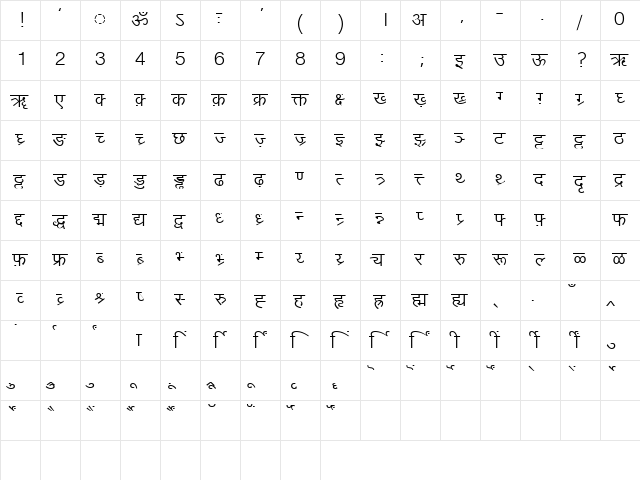
DVW-TTYogeshEN Normal Font Preview
DVW-TTYogeshEN Normal
Design Context for DVW-TTYogeshEN Typeface
DVW-TTYogeshEN is a composed and adaptable typeface that performs quietly and consistently across a wide range of design contexts.